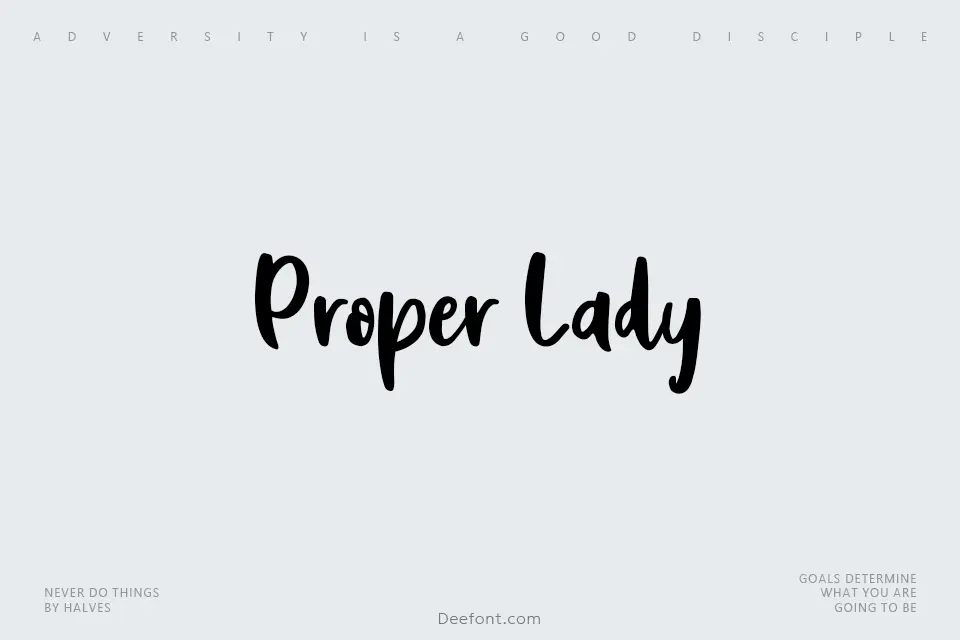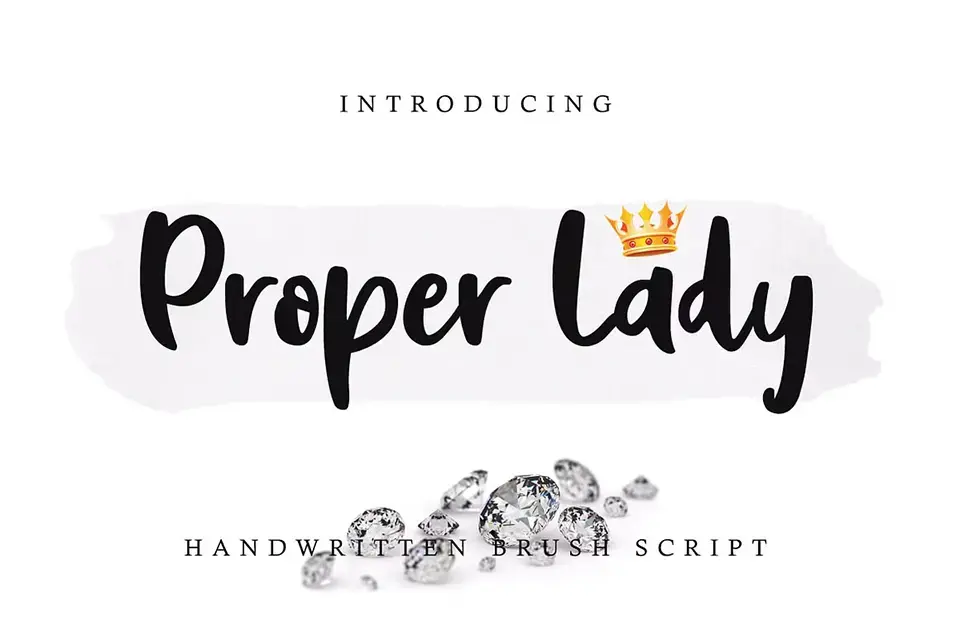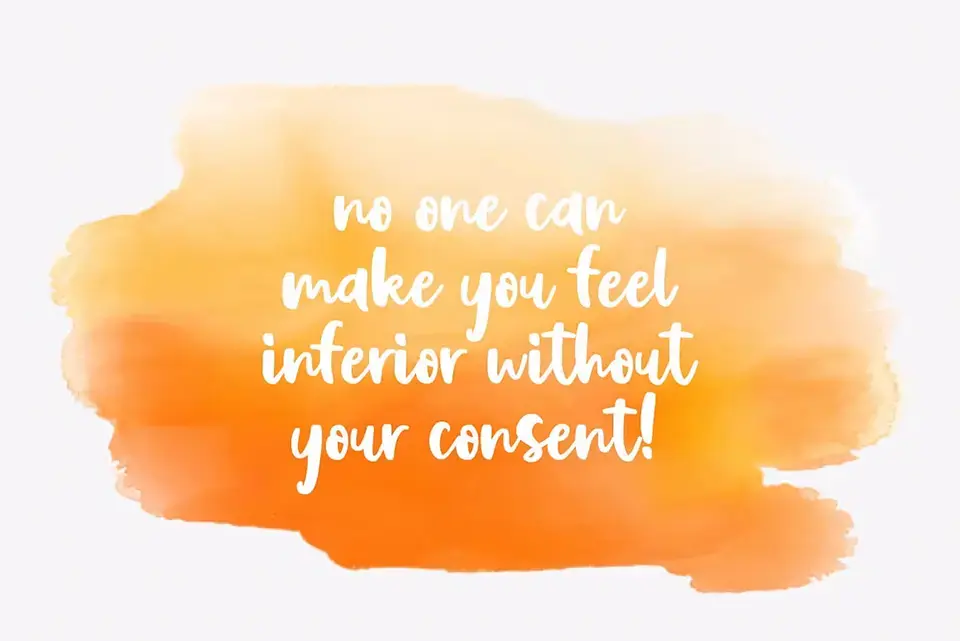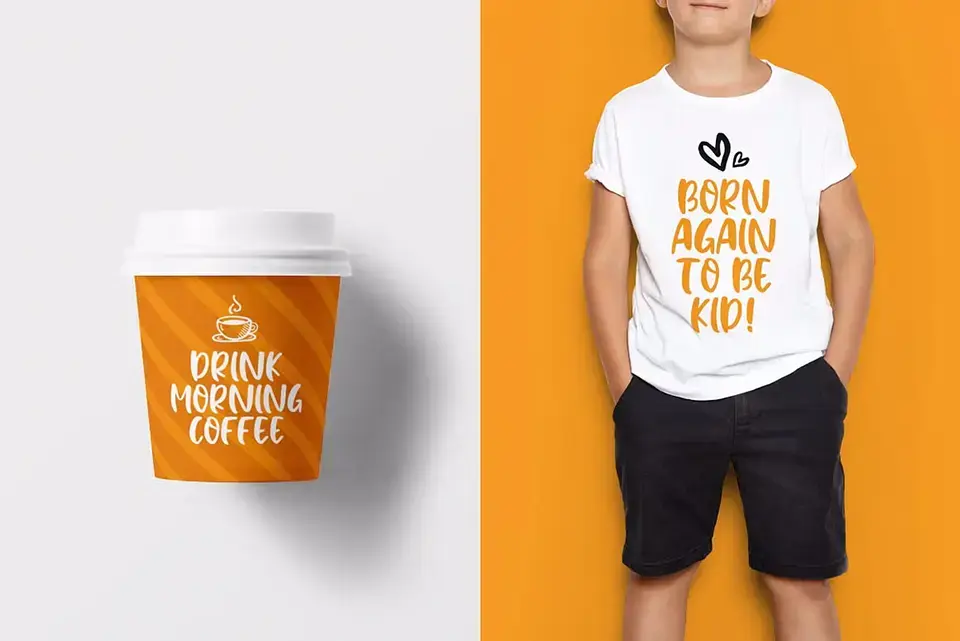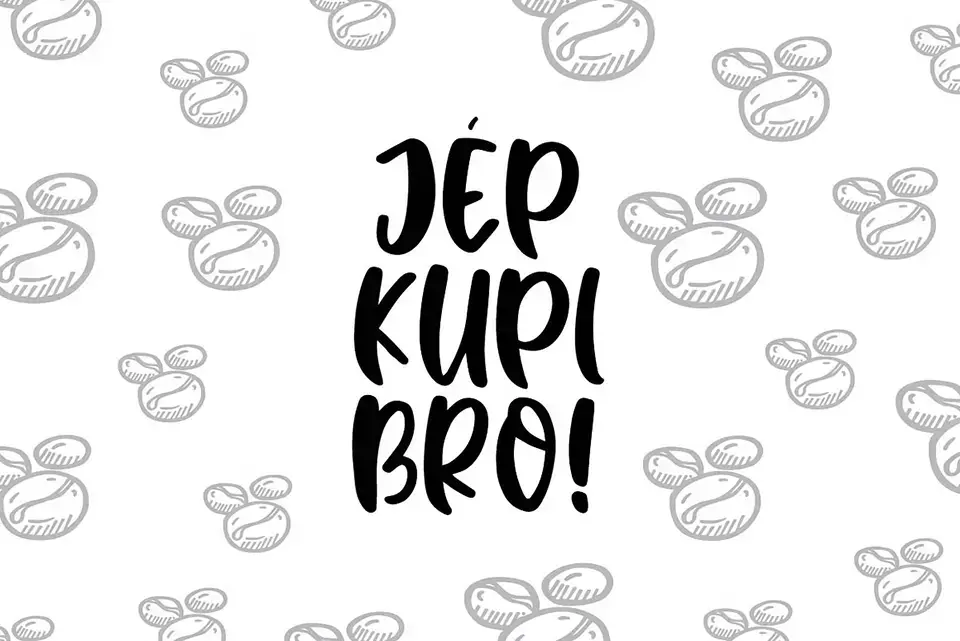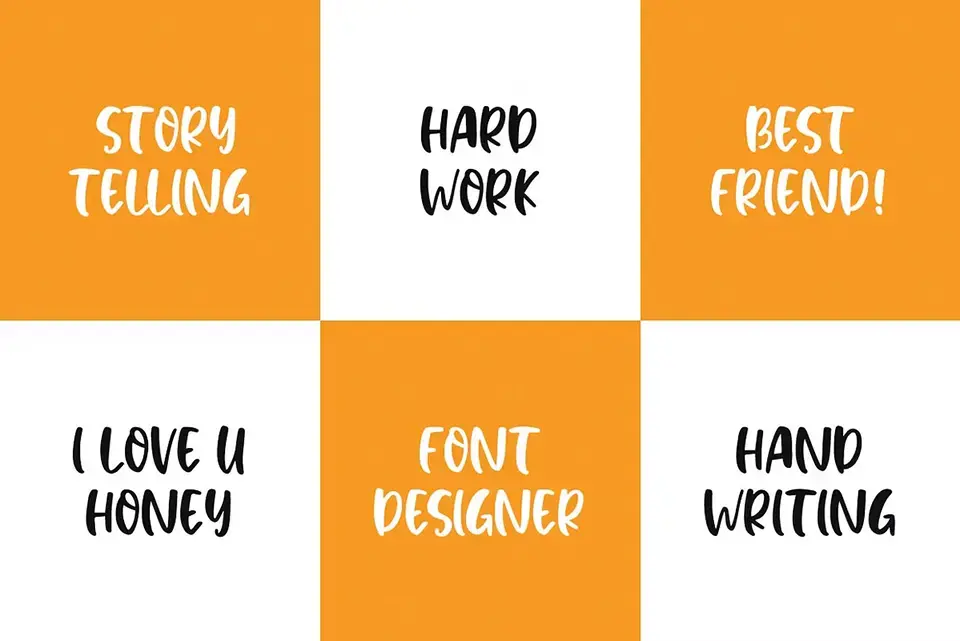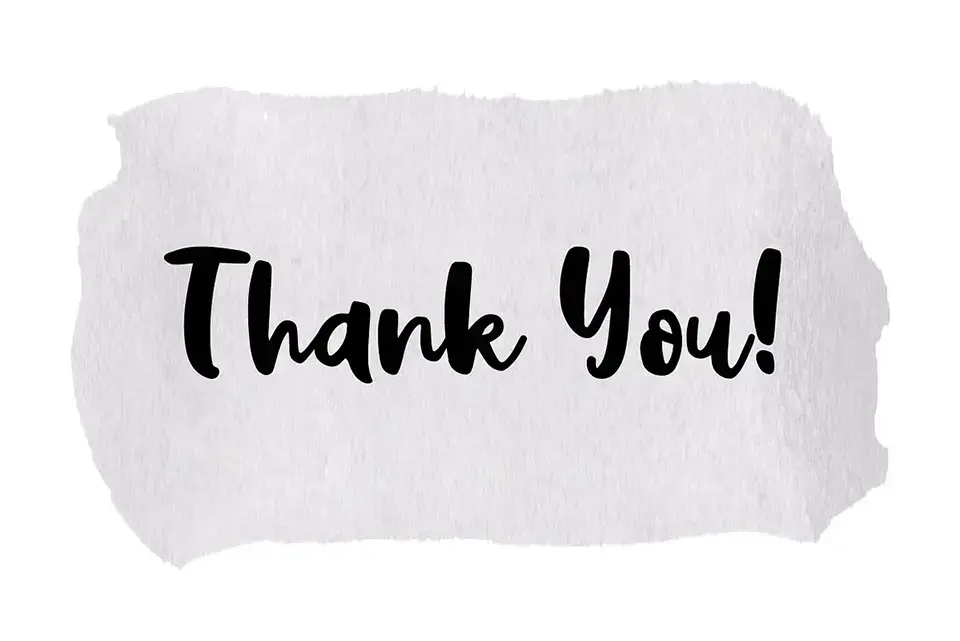
Proper Lady Font
Proper Lady is an elegant handwritten script font with smooth, flowing curves and a refined feminine character. Designed with sophisticated yet playful letterforms, this typeface excels in creating elegant titles, wedding invitations, greeting cards, logo designs, and decorative branding elements. The font’s natural handwriting aesthetic combined with its refined curves makes it perfect for projects requiring a personal, elegant touch that conveys femininity and sophistication. Ideal for fashion branding, event invitations, and upscale packaging designs.